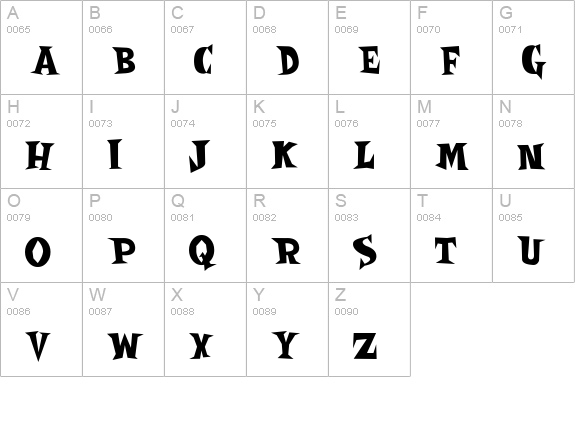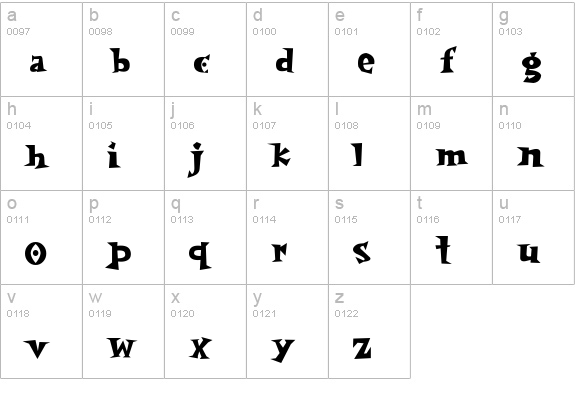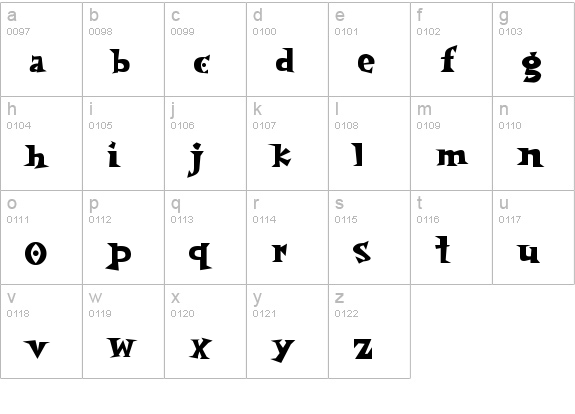
SpookyMagic Font Details
Introducing SpookyMagic, a captivating and enchanting font that will add a touch of mystique to your design projects. This unique and spooky font is perfect for Halloween-themed designs, horror movie posters, eerie book covers, and any project that requires a dash of dark magic. With its intricate and decorative letterforms, SpookyMagic will transport your audience to a world of supernatural wonders. Each letter is carefully crafted to evoke a sense of mysteriousness and intrigue, making it the ideal choice for capturing attention and creating a lasting impression. But what sets SpookyMagic apart is not just its hauntingly beautiful design – it's also free! Yes, you read that right. This spellbinding font is freely available to download at FontsMarket.com. Now you can unleash your creativity without worrying about breaking the bank. Whether you're a professional graphic designer or a DIY enthusiast, SpookyMagic is a must-have addition to your font collection. Its versatility allows it to be used in a wide range of creative projects, from party invitations to branding materials. Let your imagination run wild as you explore the endless possibilities that this font offers. So, why wait? Embrace the magic and download SpookyMagic today. Unleash its supernatural powers and watch as your designs come alive with a touch of otherworldly charm. Get ready to captivate your audience and leave them spellbound. Don't miss out on this free font – visit FontsMarket.com now and let the magic begin!